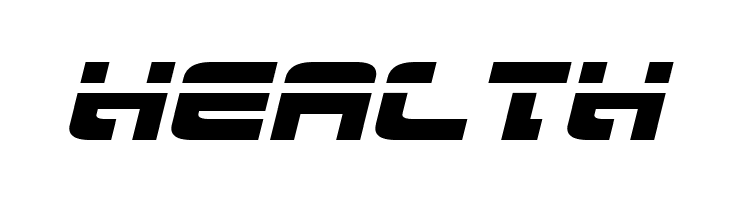
Beam Rider Laser Font
- Font: Beam Rider Laser
- Weight: Laser
A bold, italicized font with a futuristic and dynamic style, featuring geometric shapes and sharp angles.